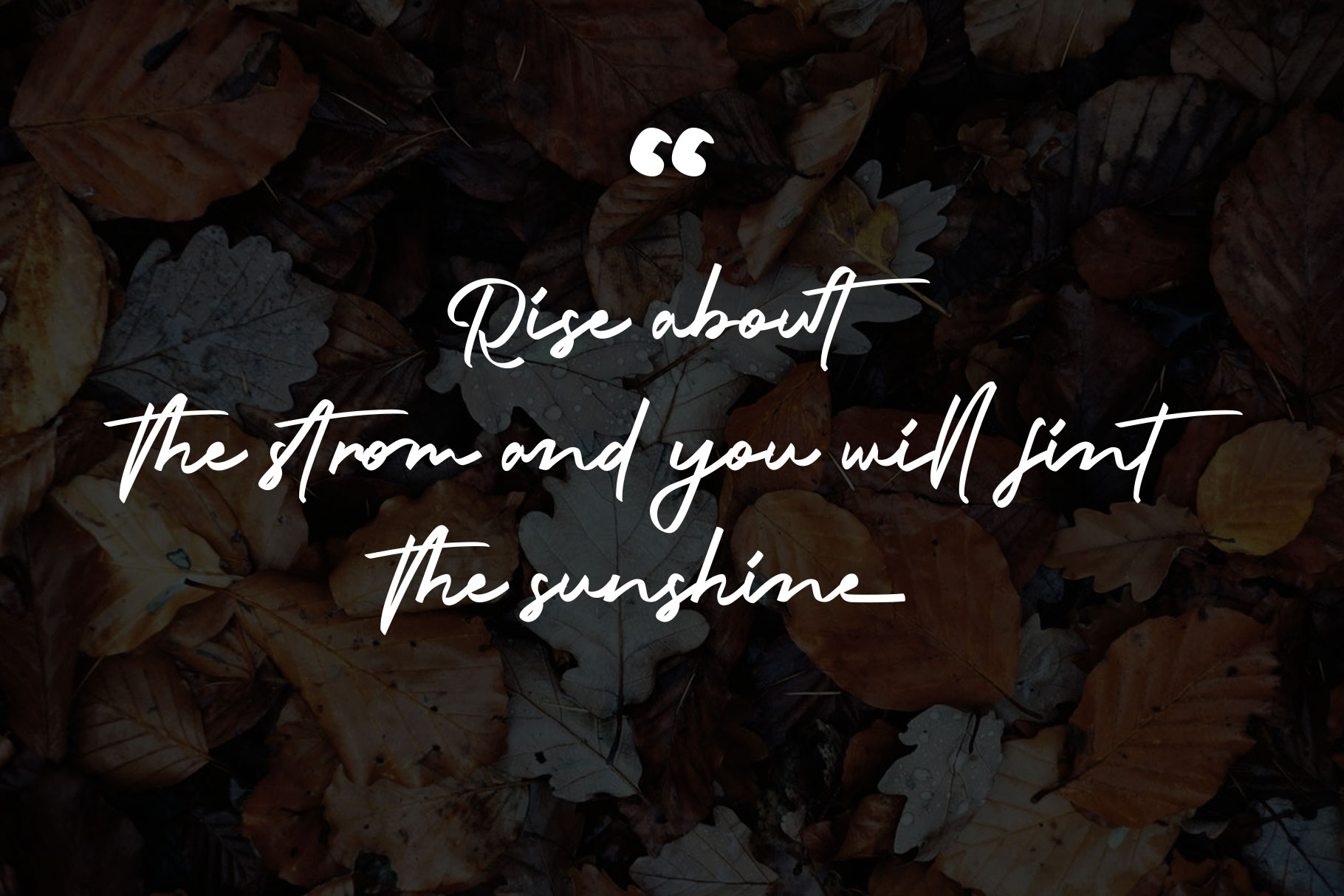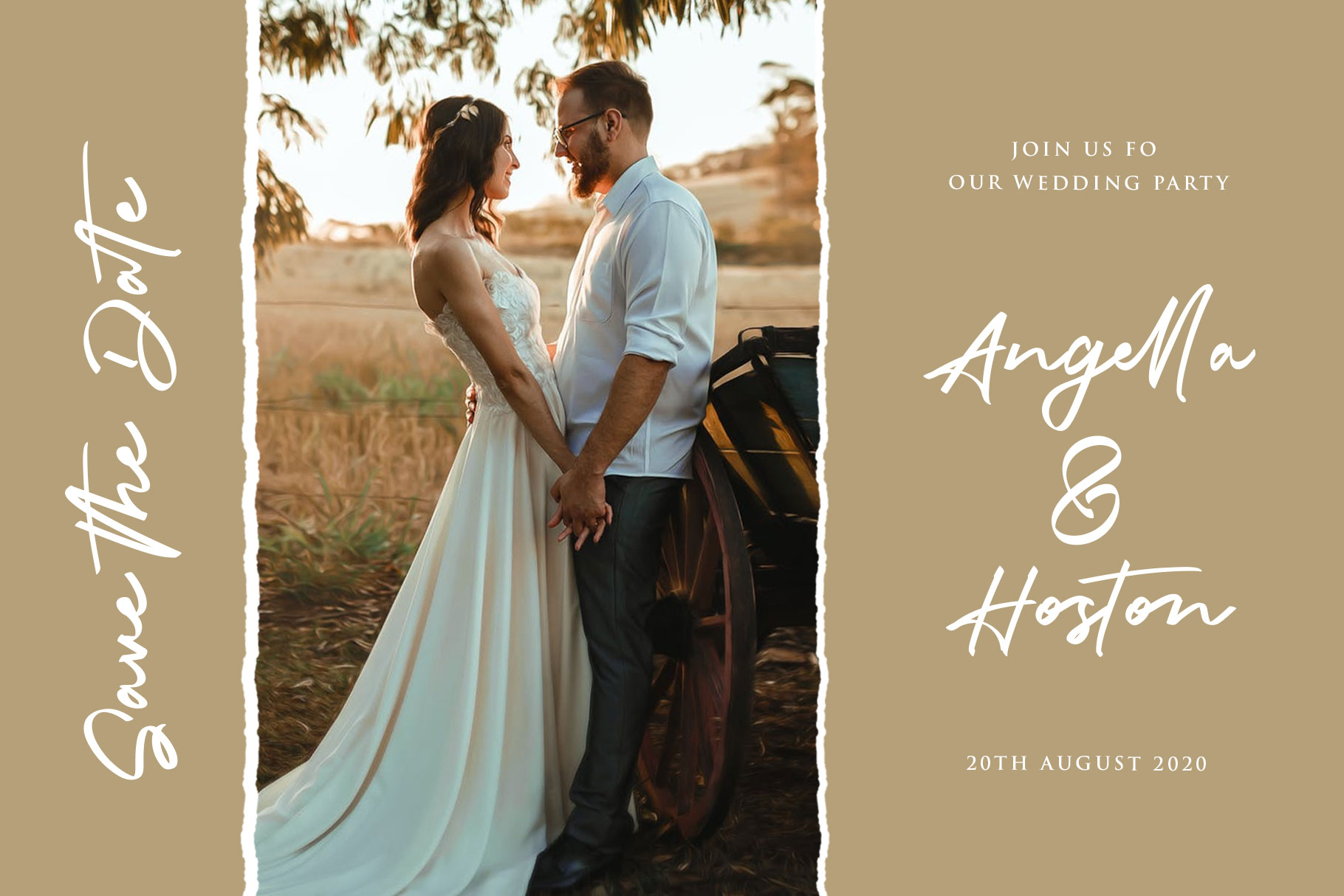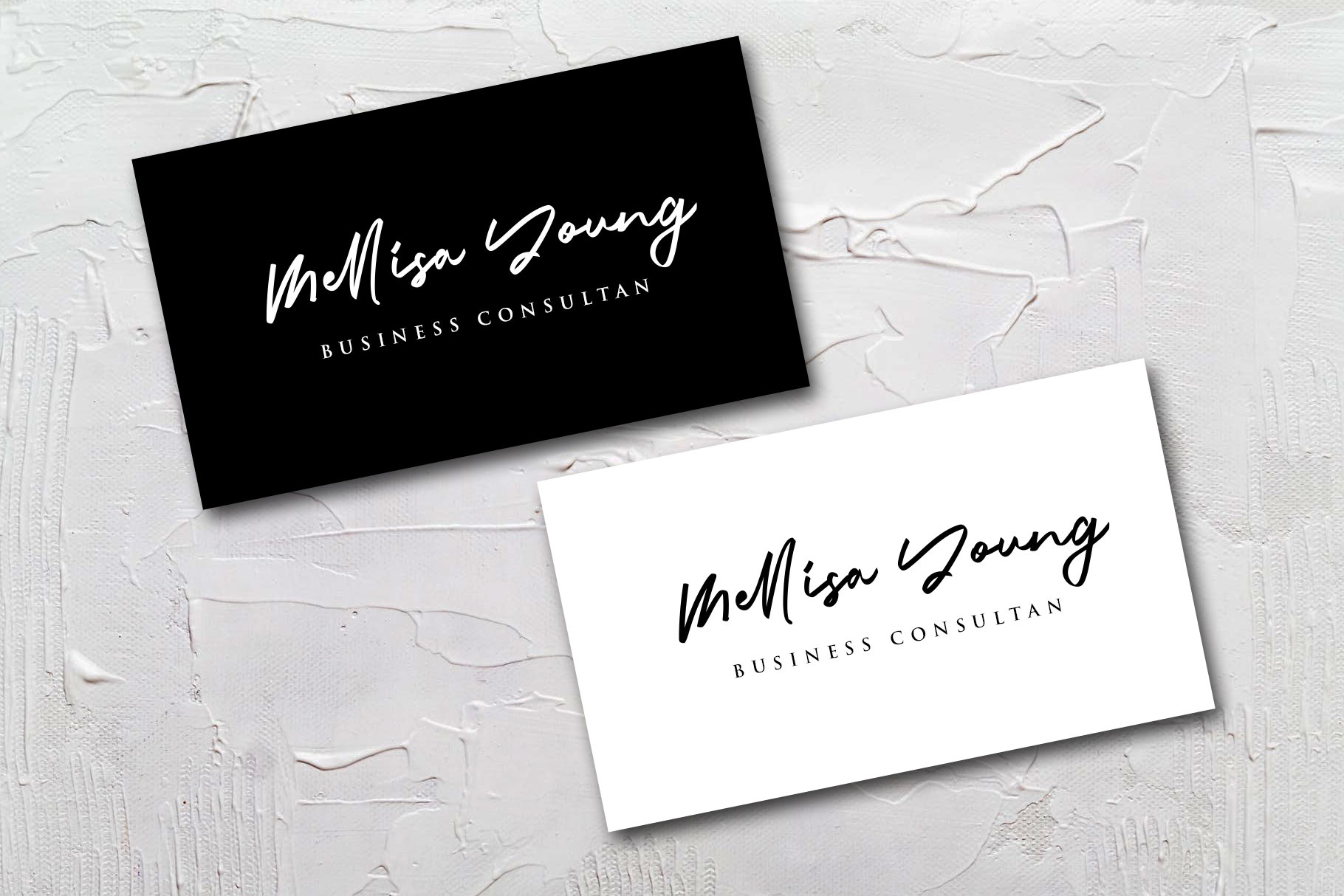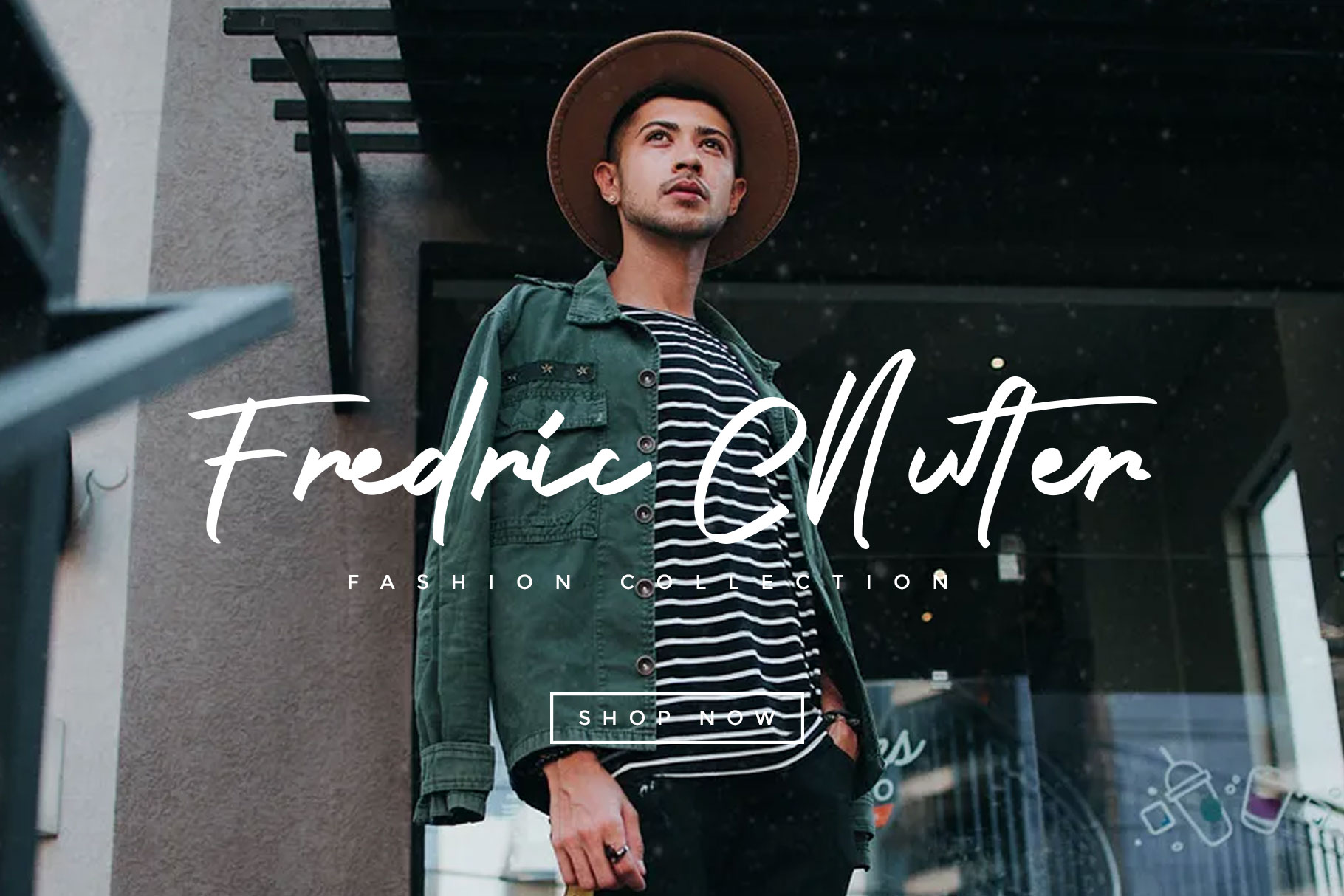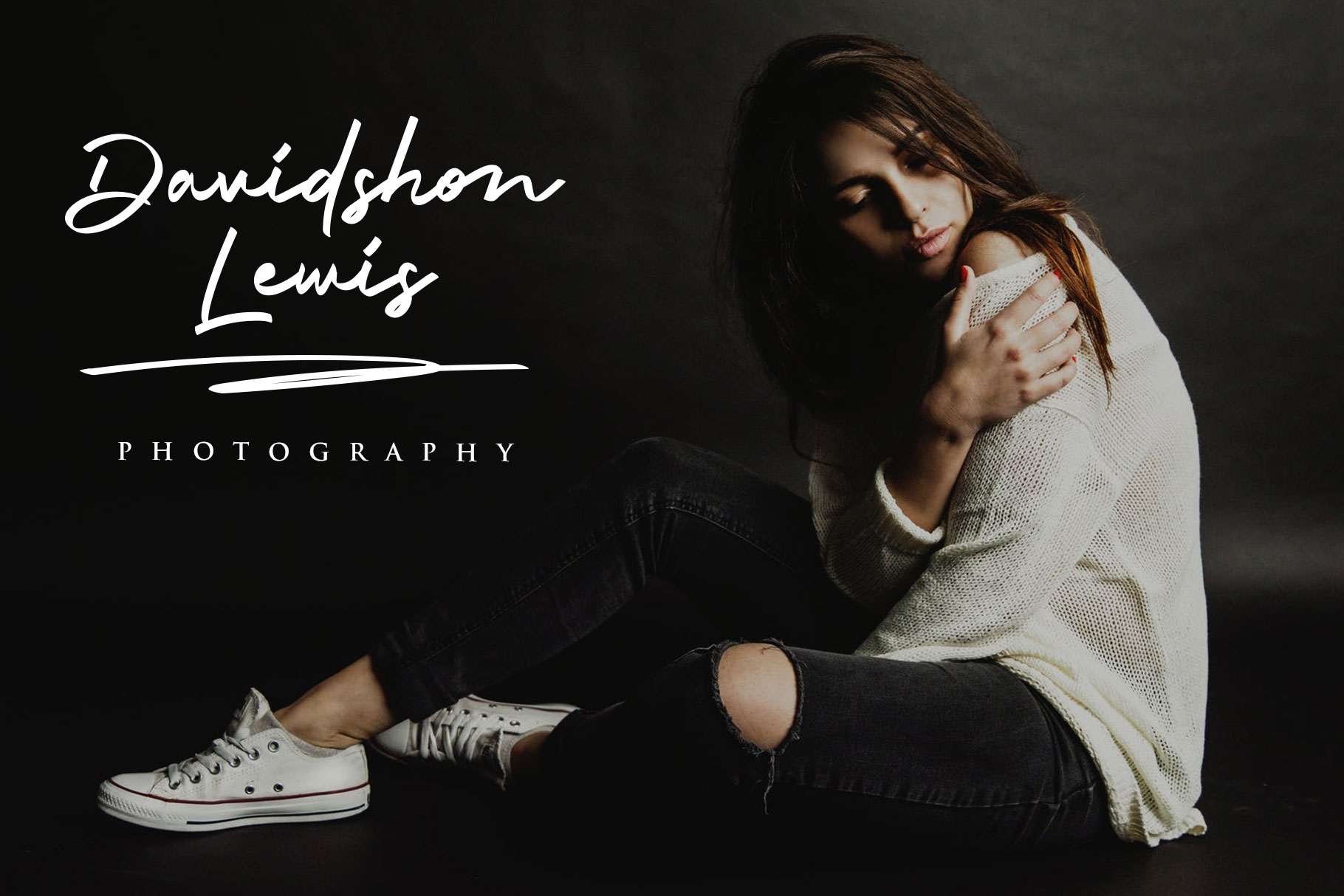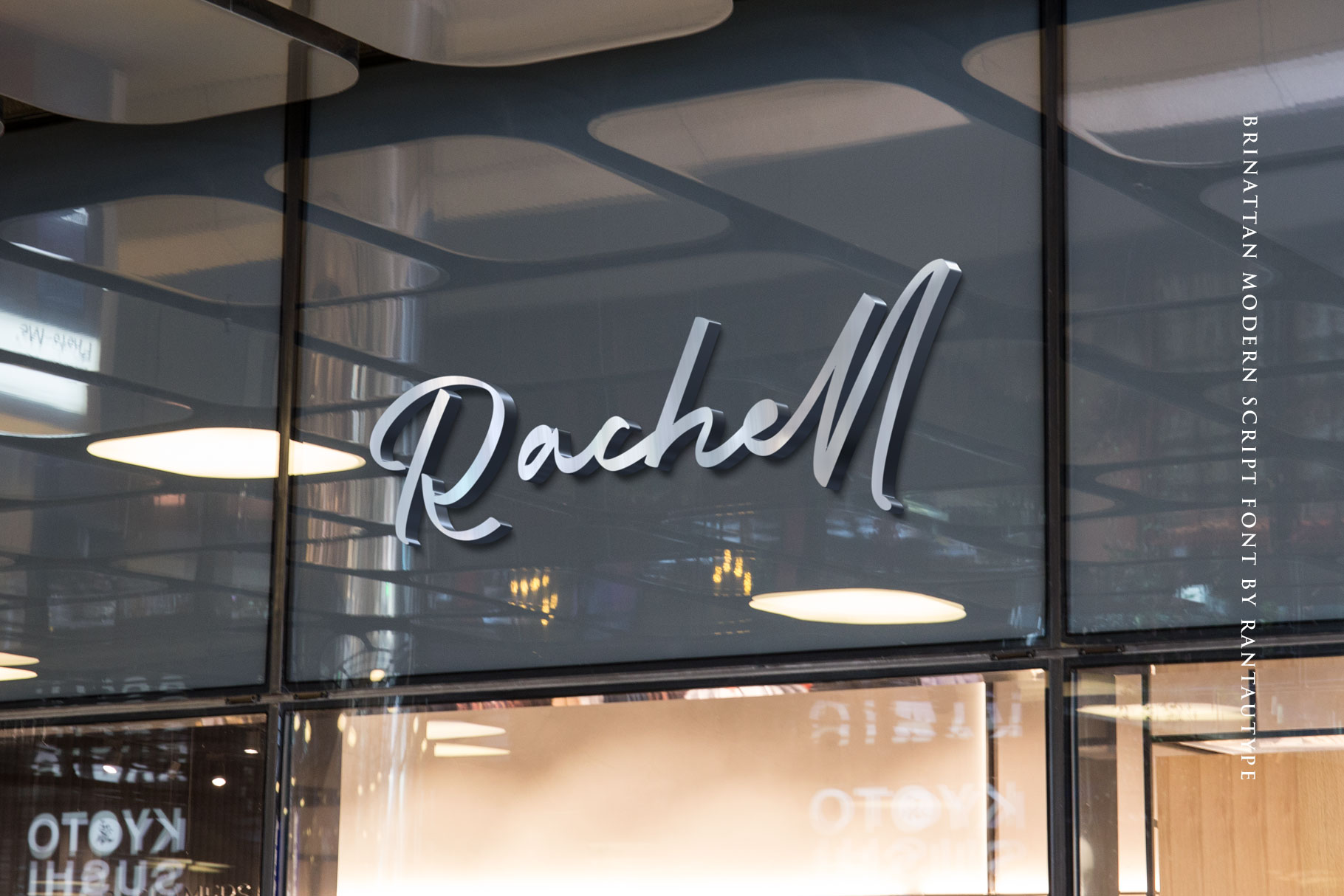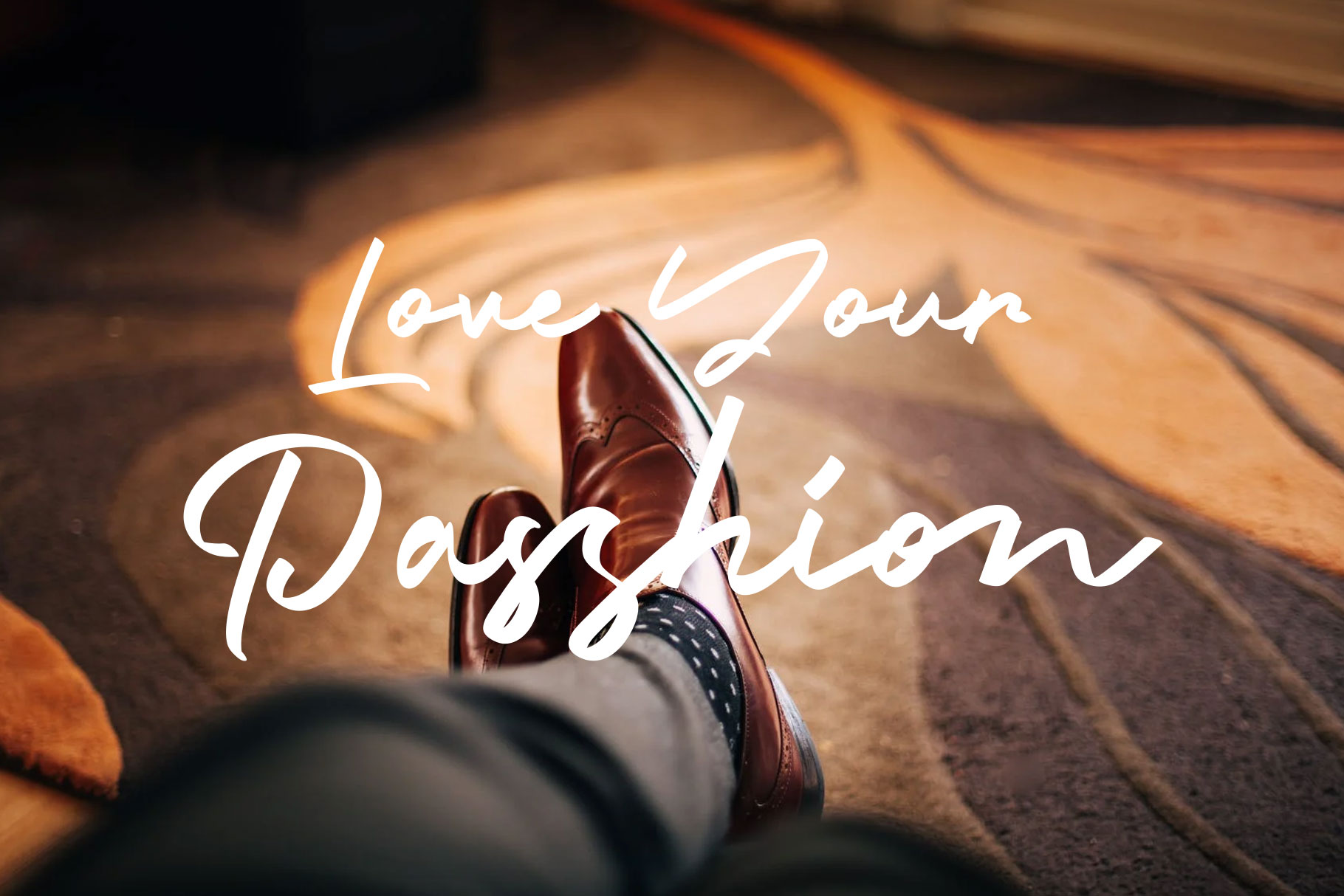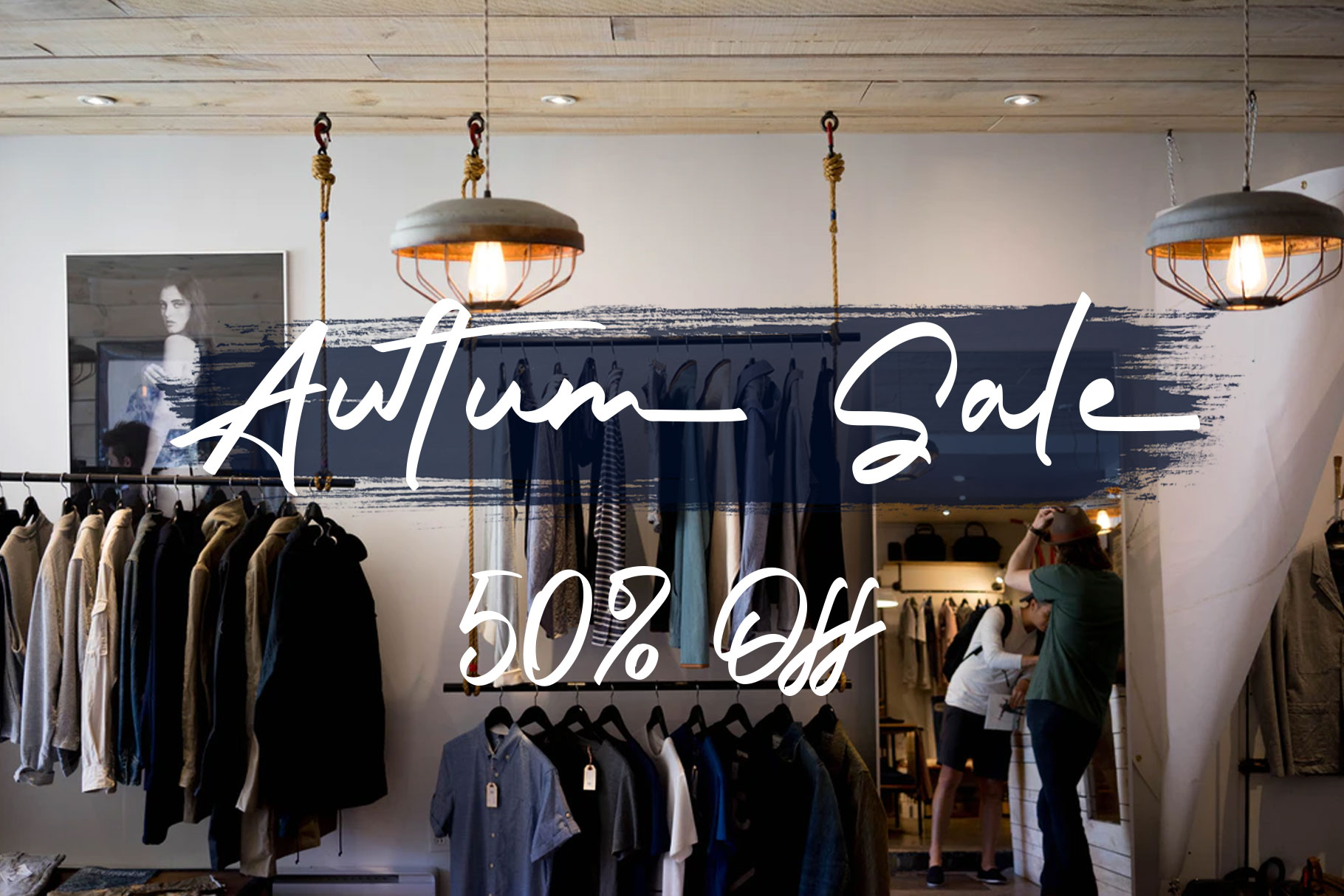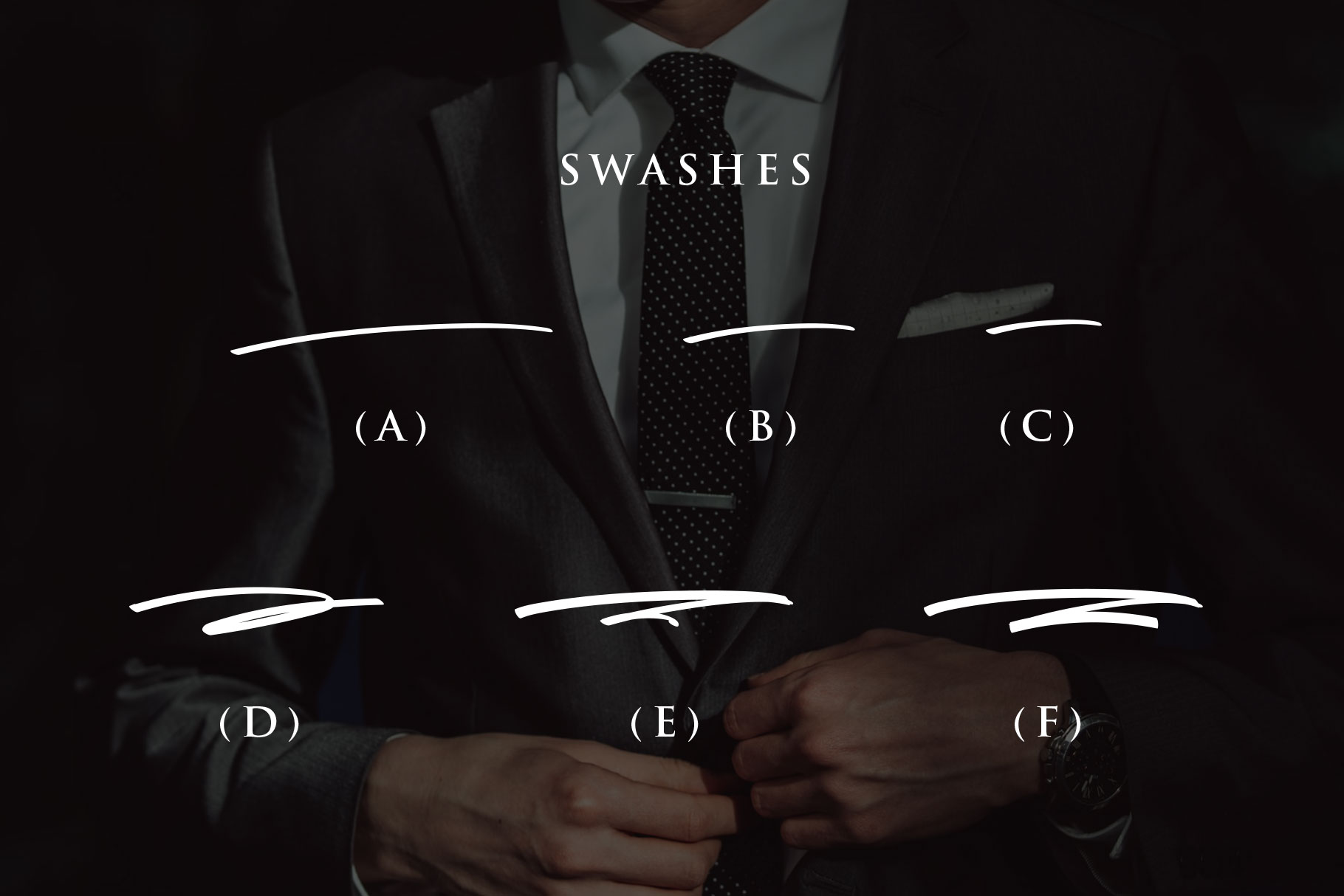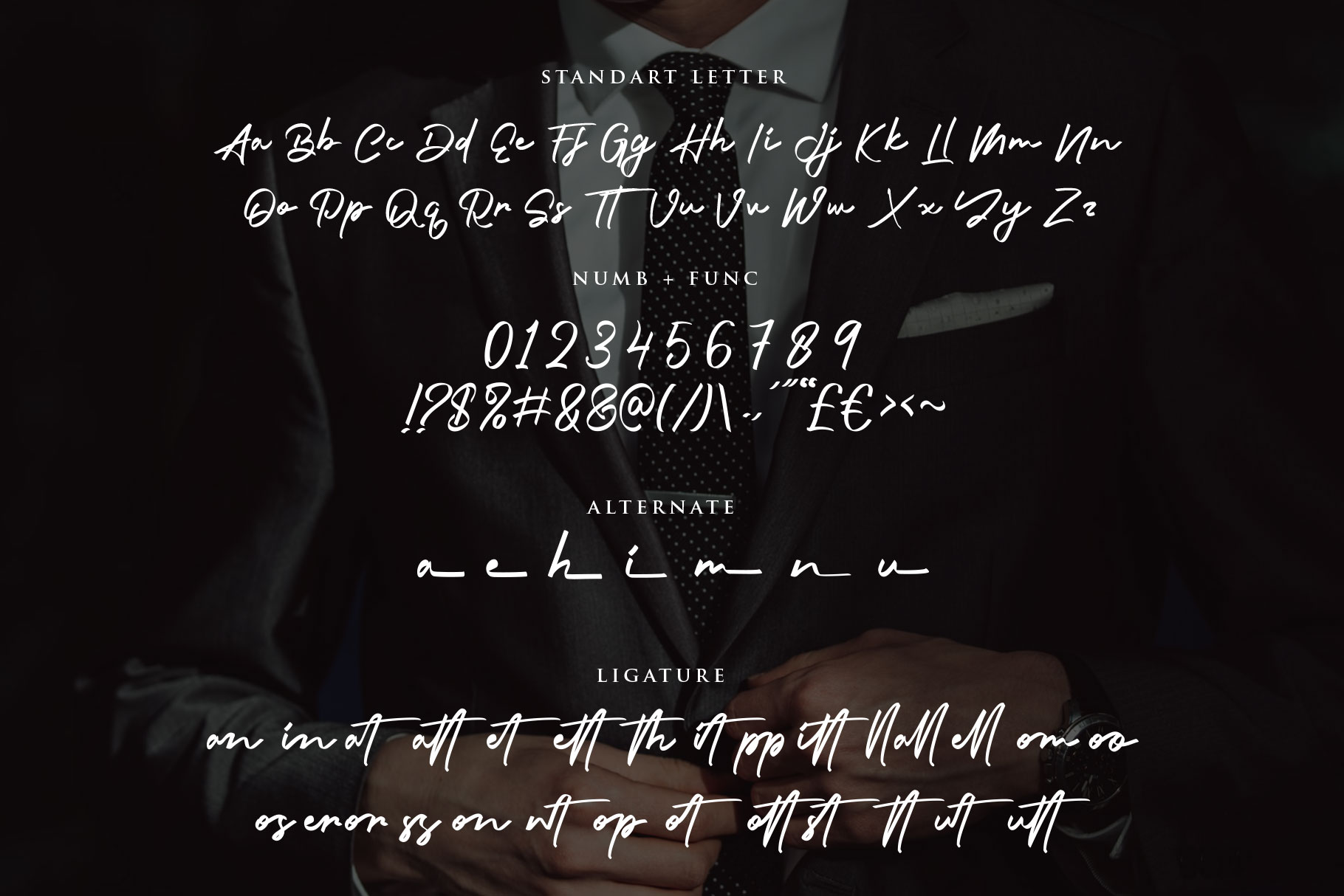
Brinattan Handwritten Font
Brinattan is modern style which can be interpreted professional. we keep this font looks classy, readable, stylish, catchy and easy to use. Brinattan is the great choice for watermark on photography, signature or signature logo design, quotes, album cover, business card and many other design project. Brinattan is here to make your work to high level!!!
• Basic Latin A-Z and a-z
• Swashes